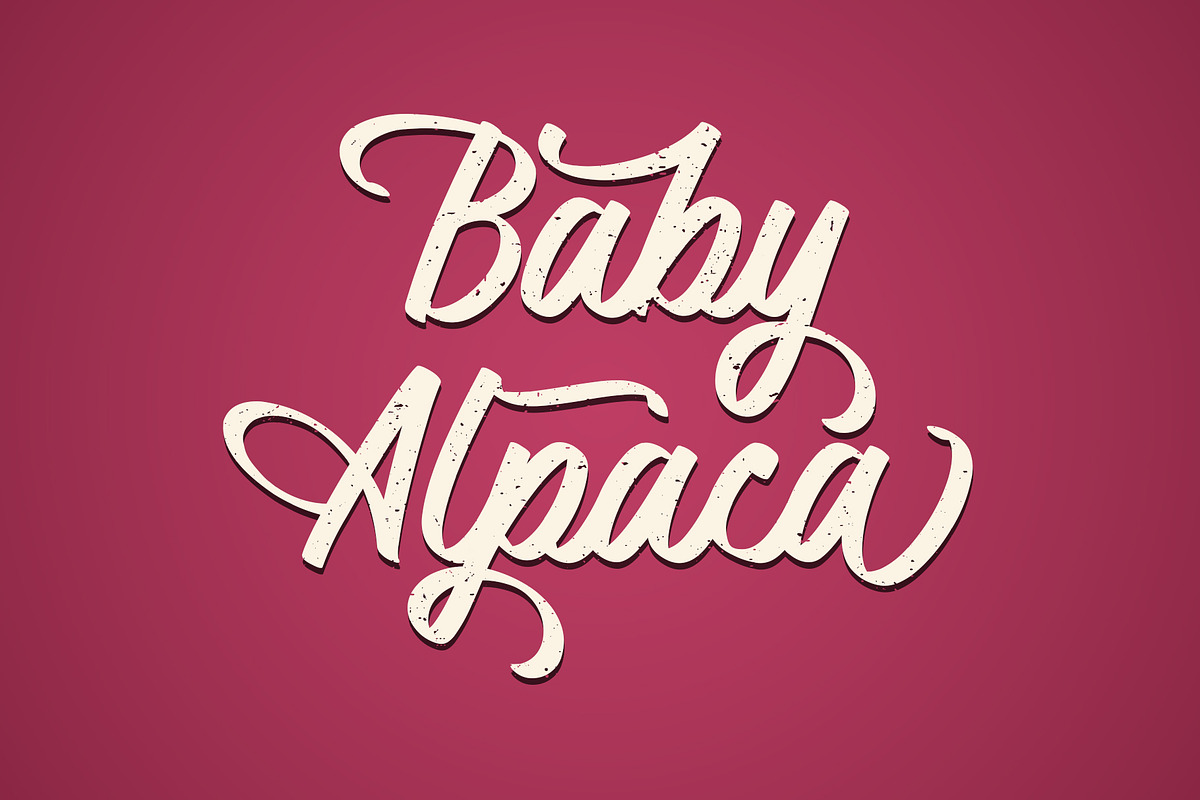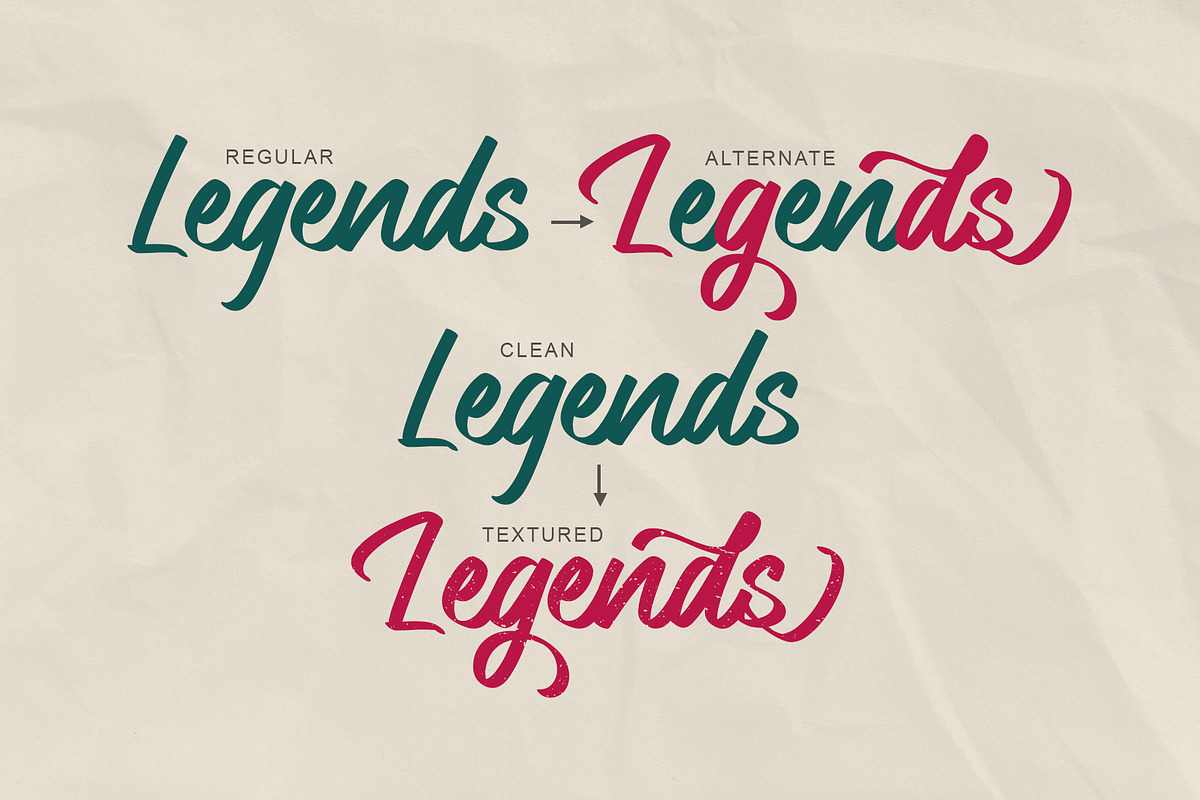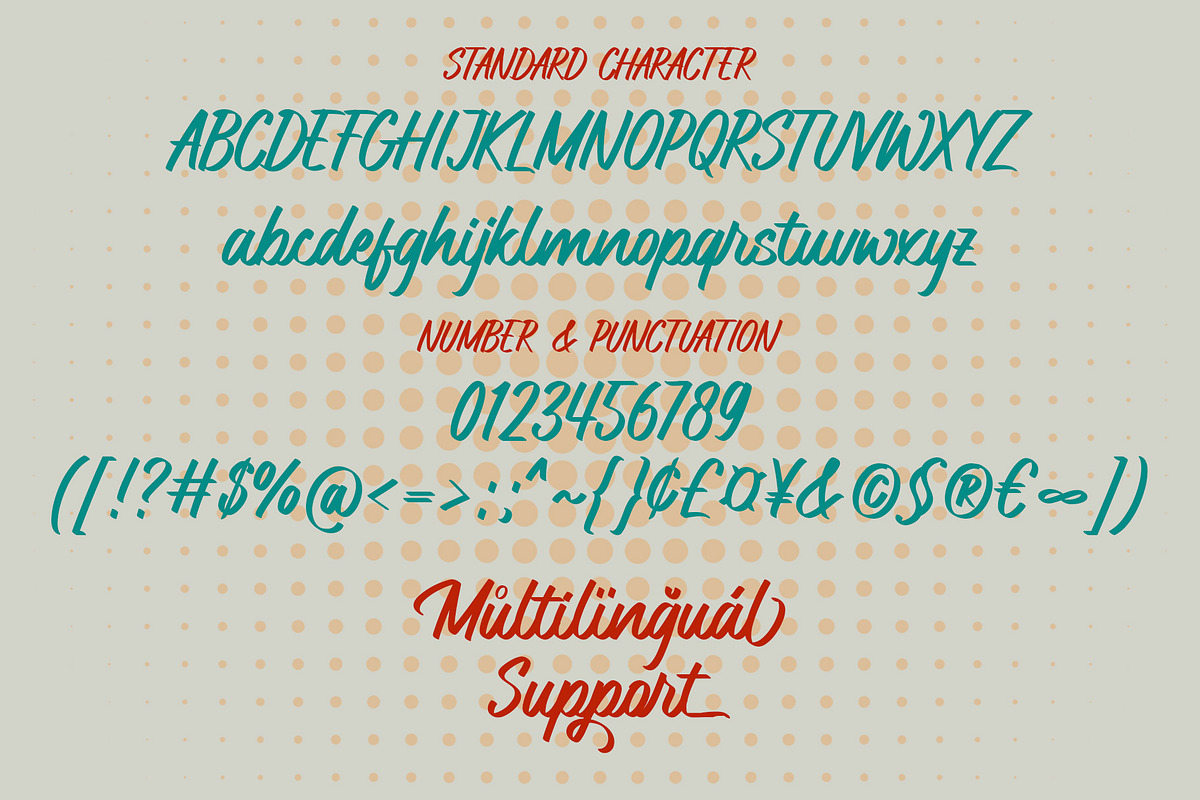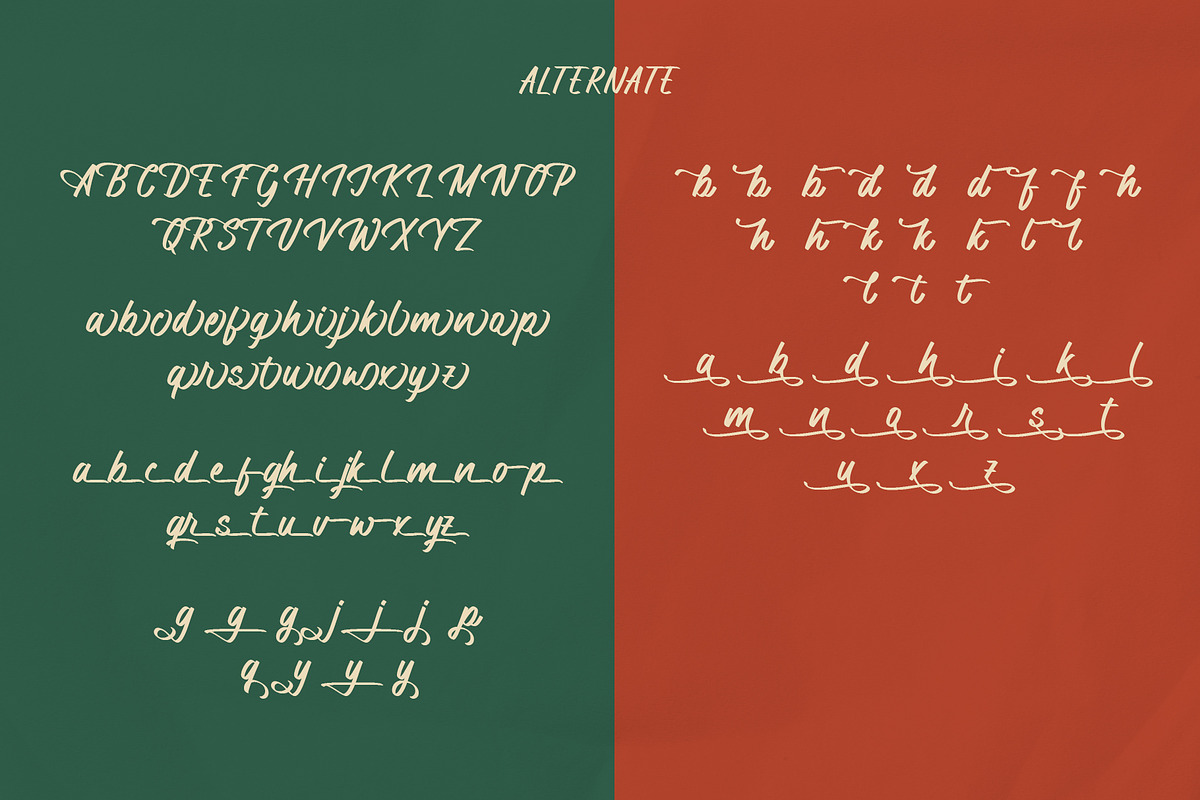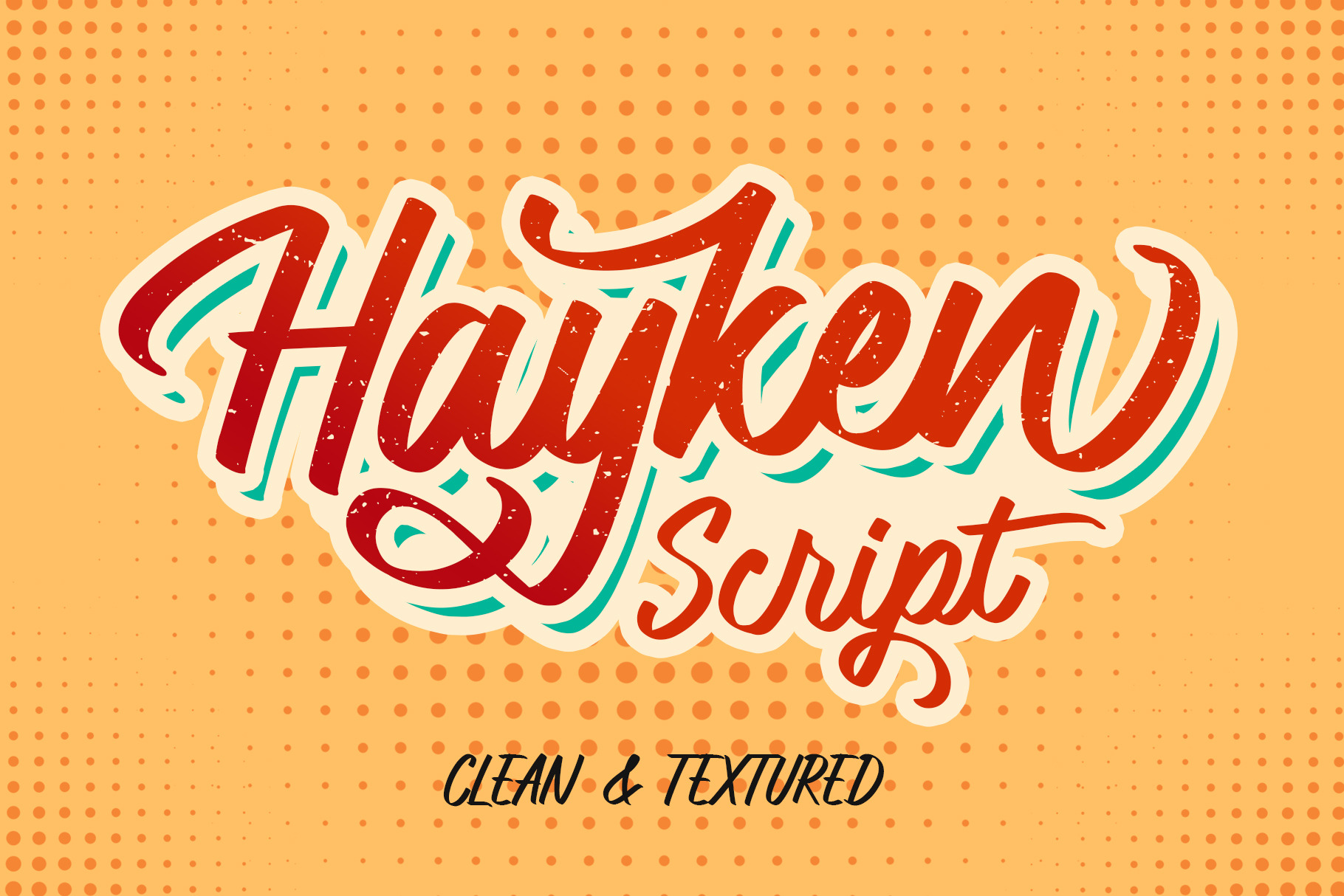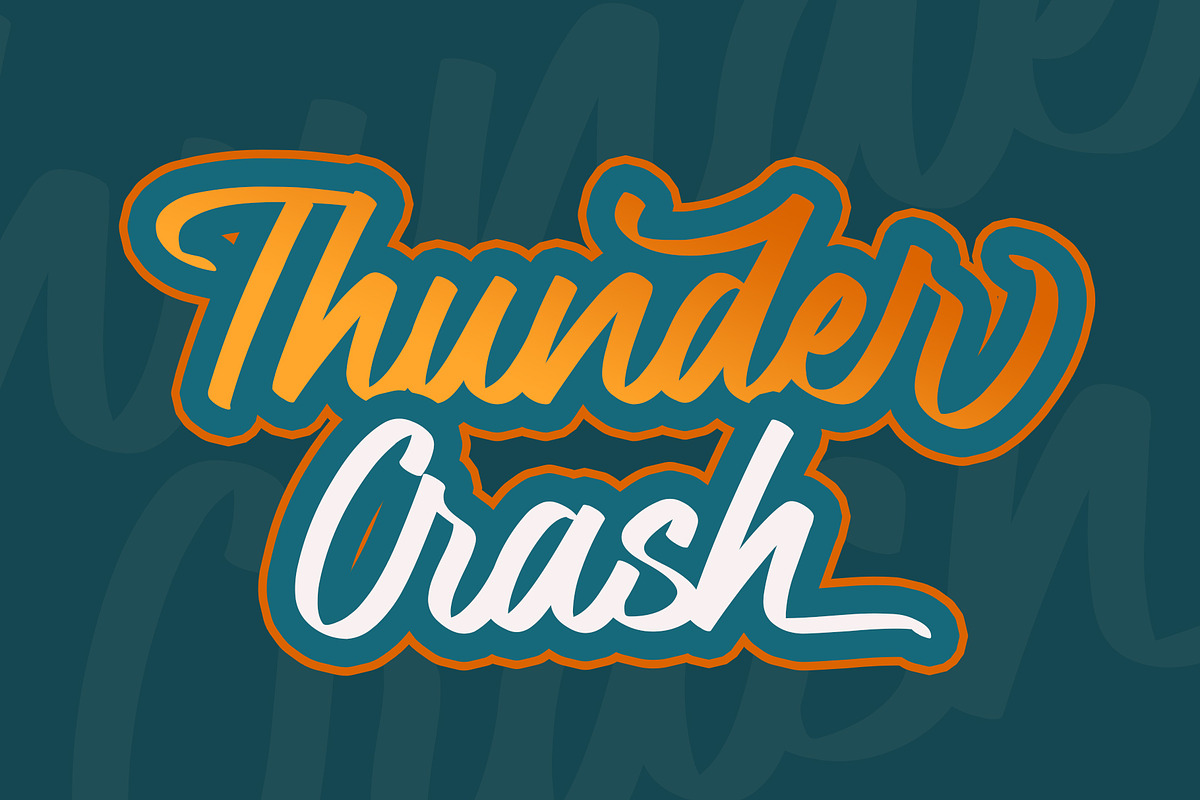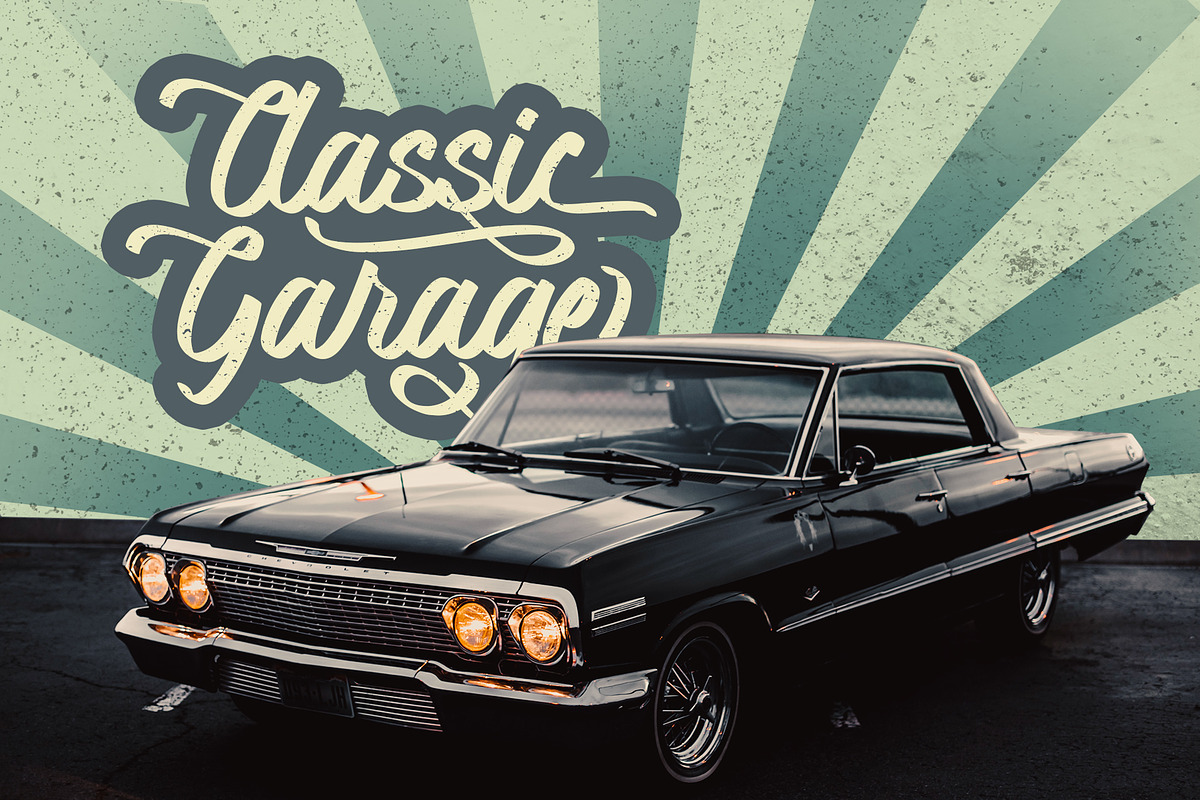
Hayken | Script Font
Hayken Script is a brush script font with a dynamic and energetic style. There are two types of styles (clean and textured). It can used for various purposes such as titles, logotypes, t-shirt designs, letterheads, signage’s, labels, newsletters, posters, badges, and every other design which needs an unique, striking font.